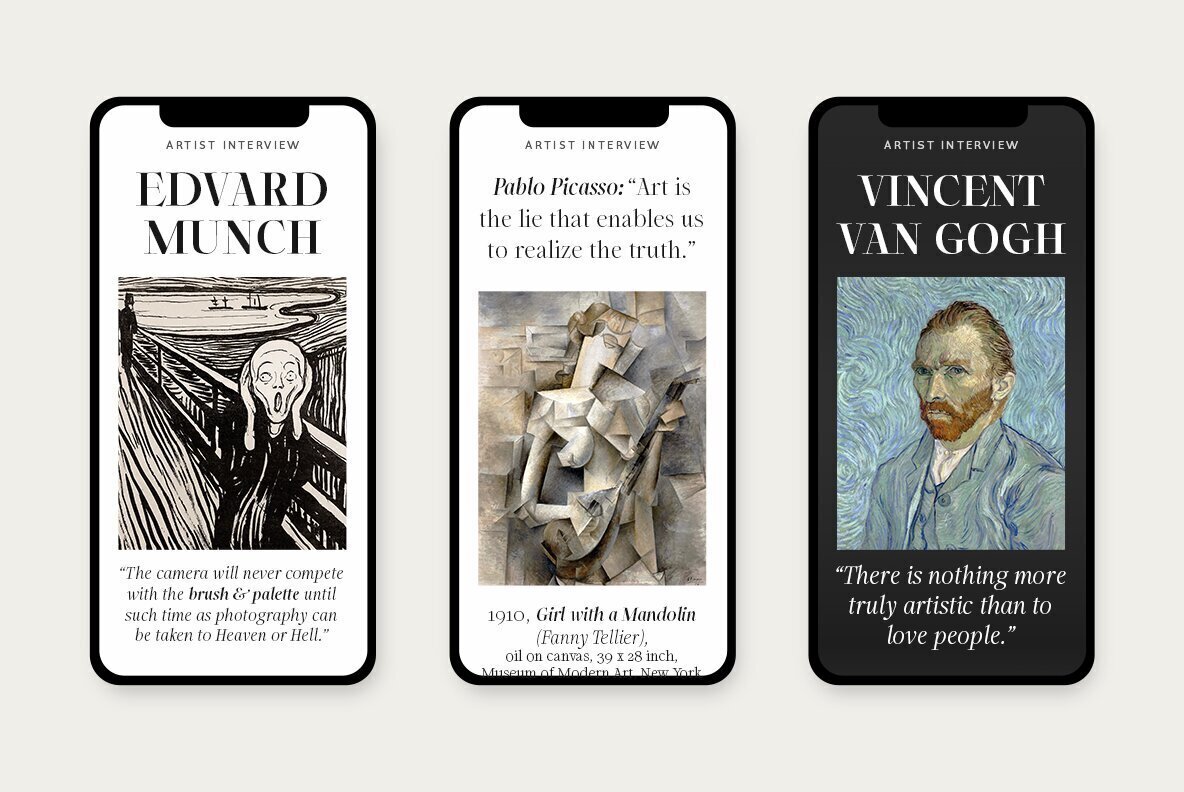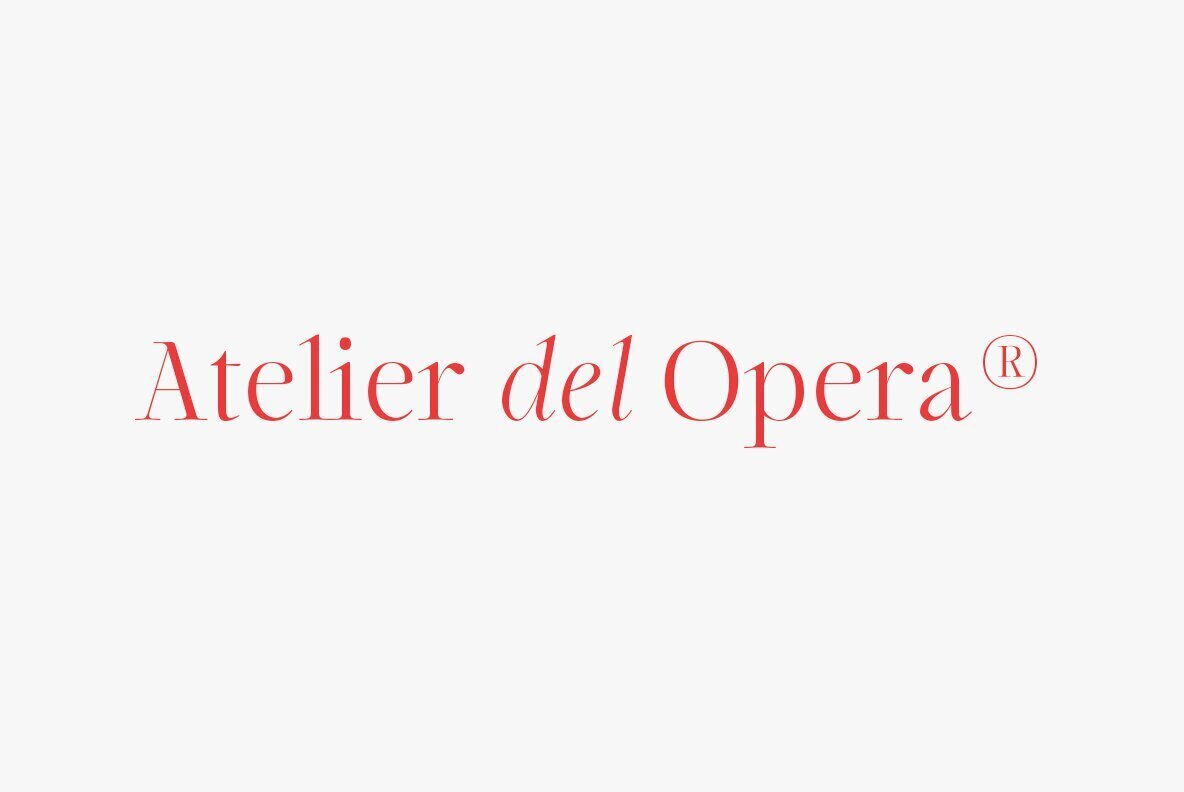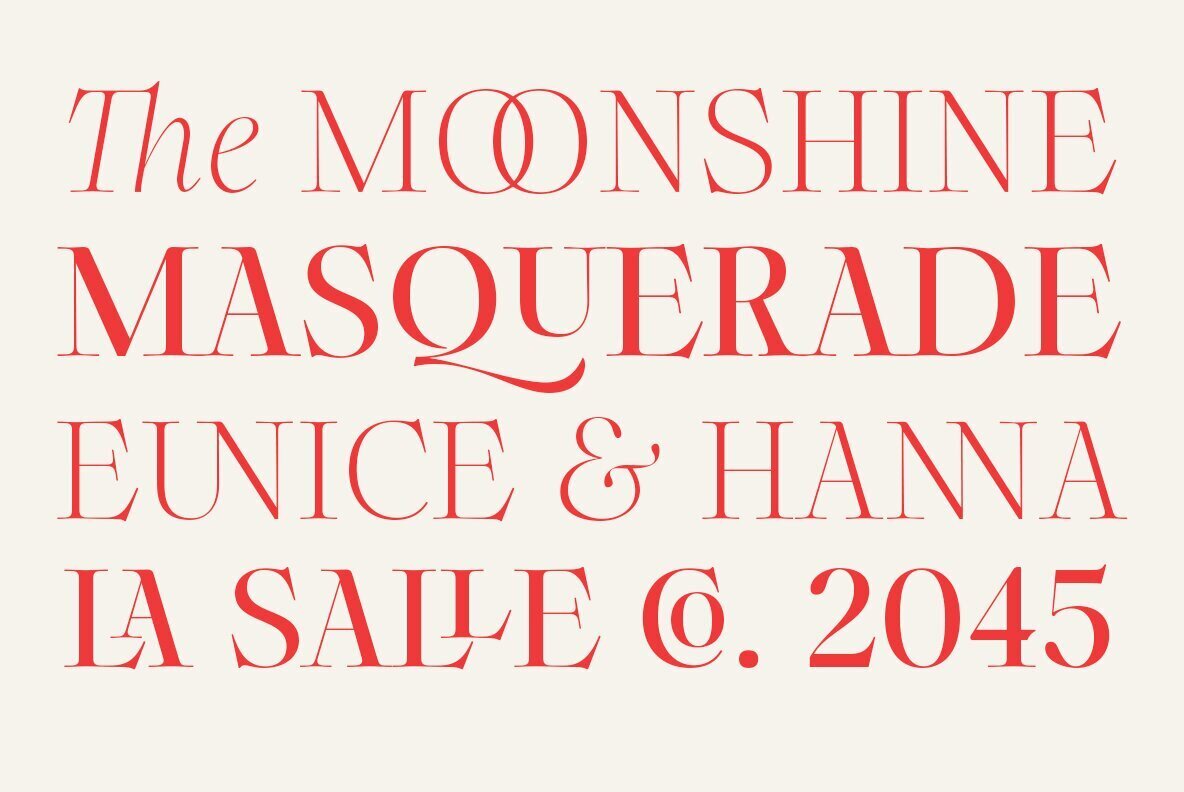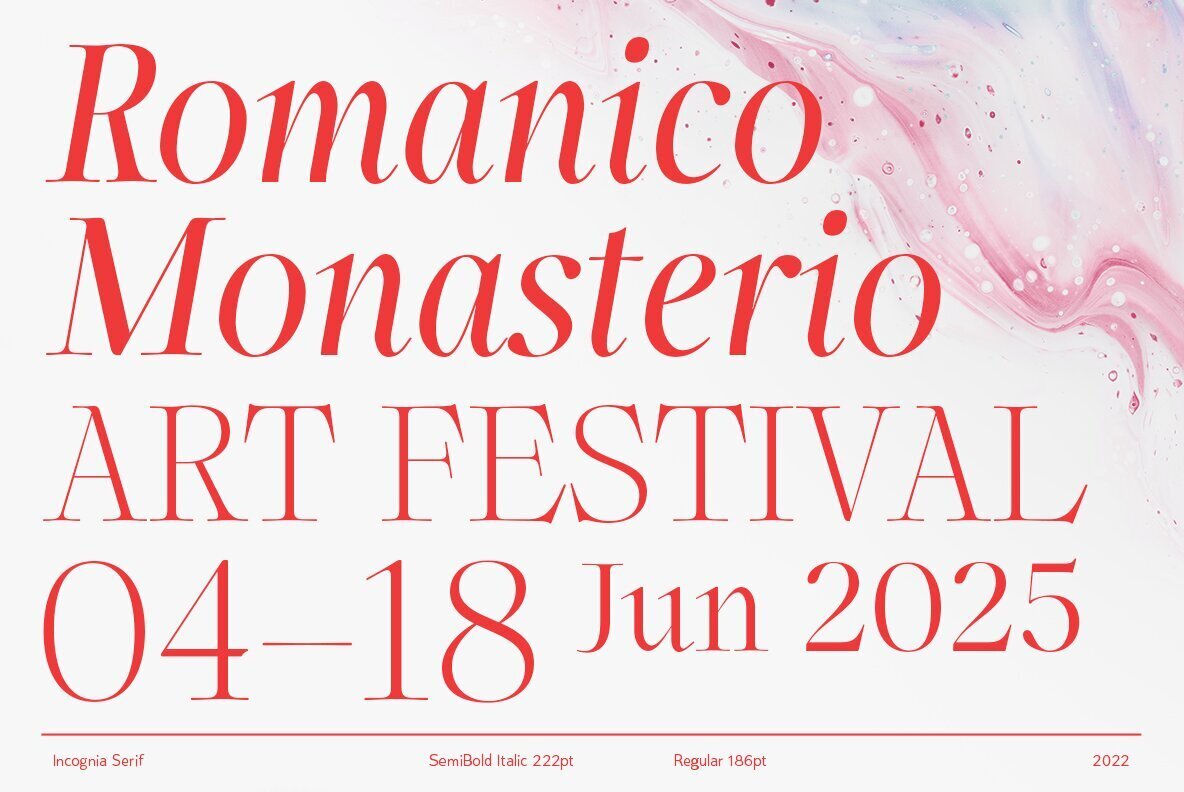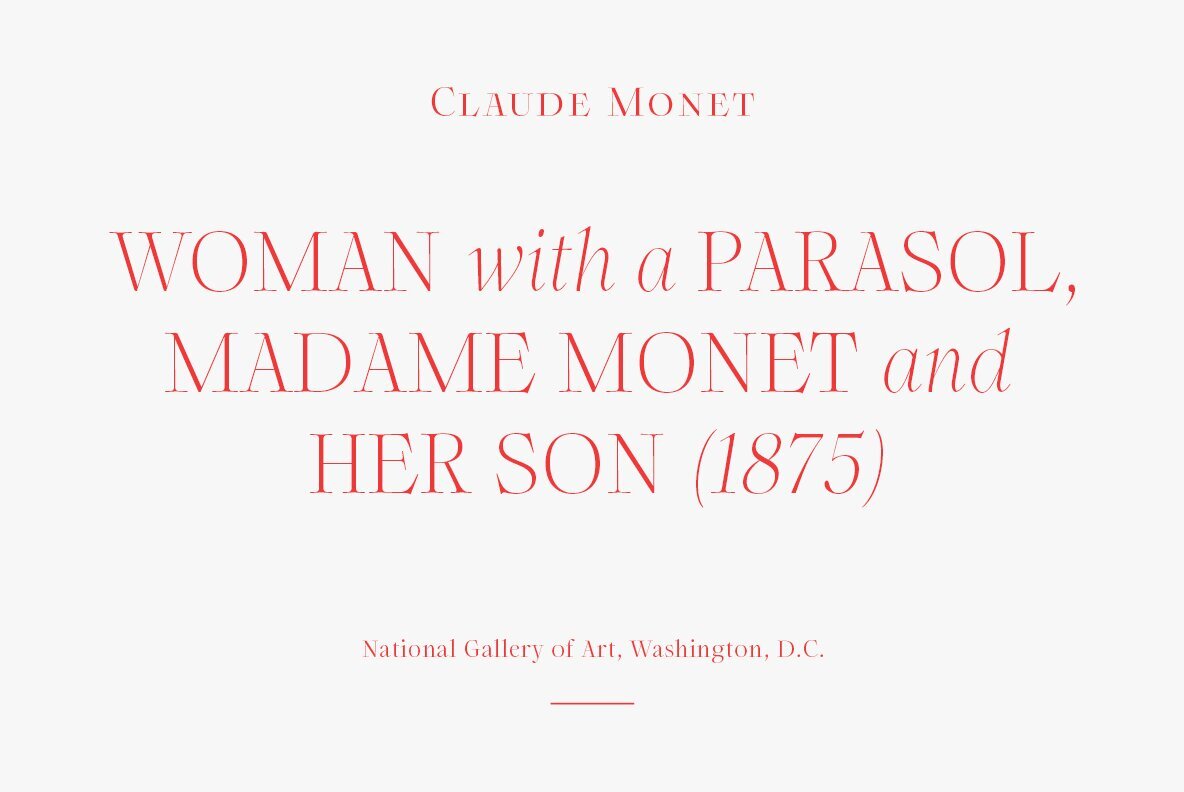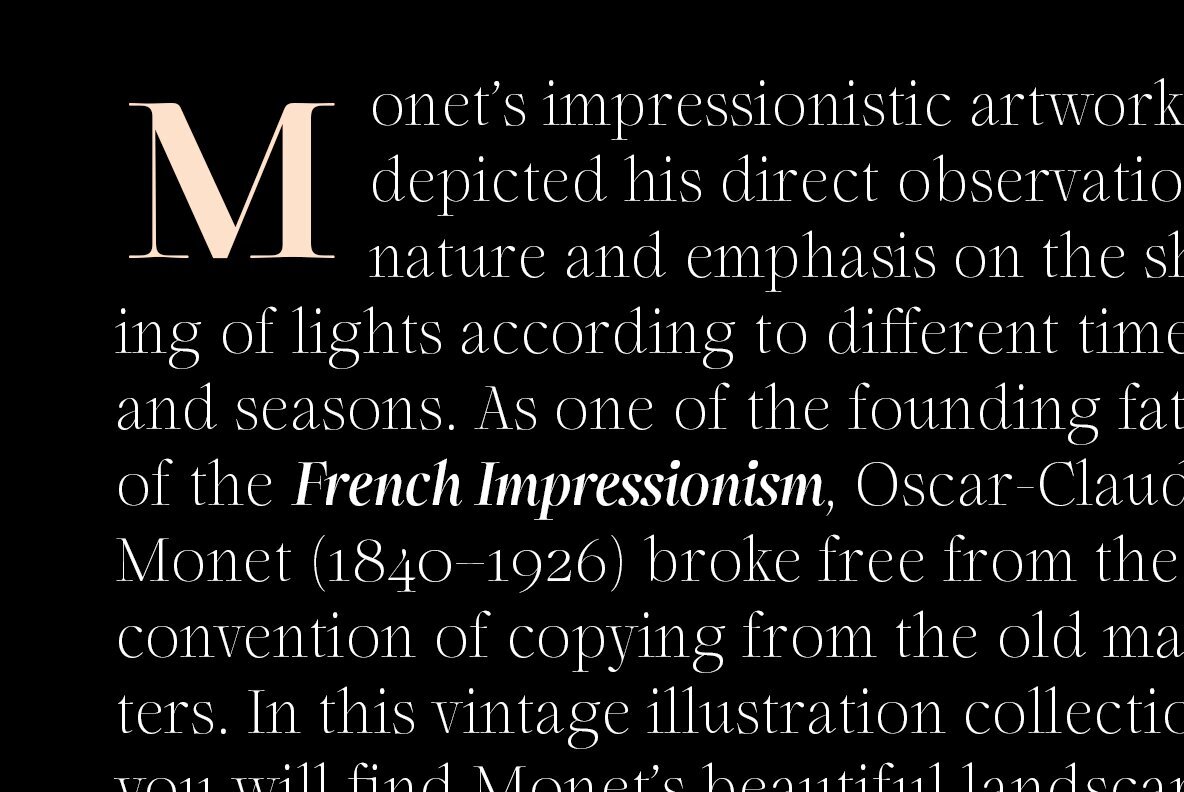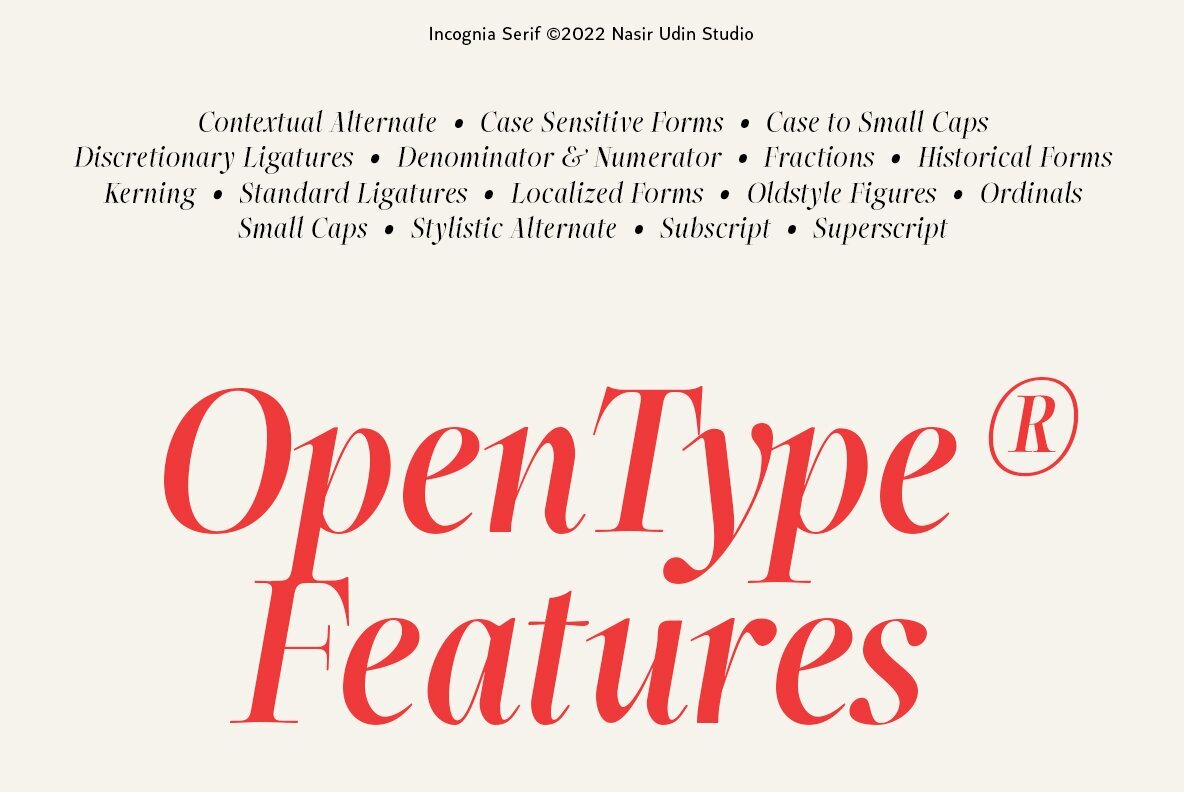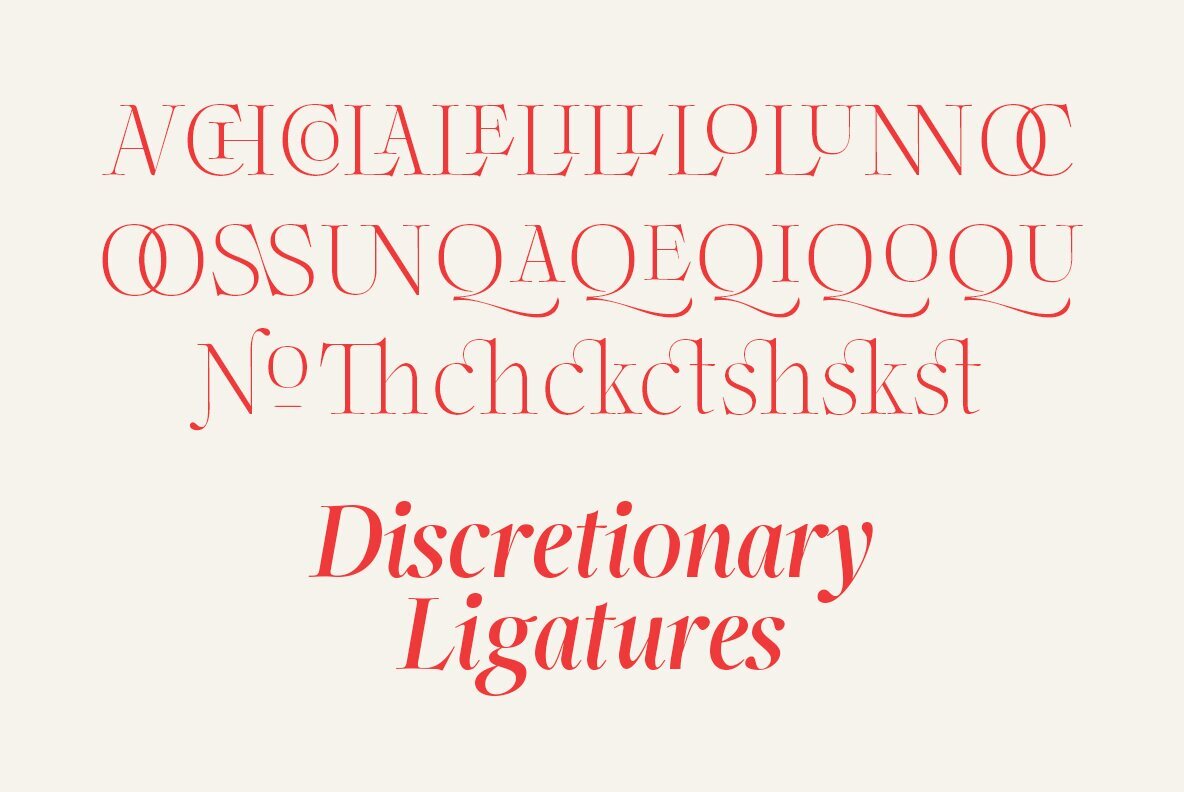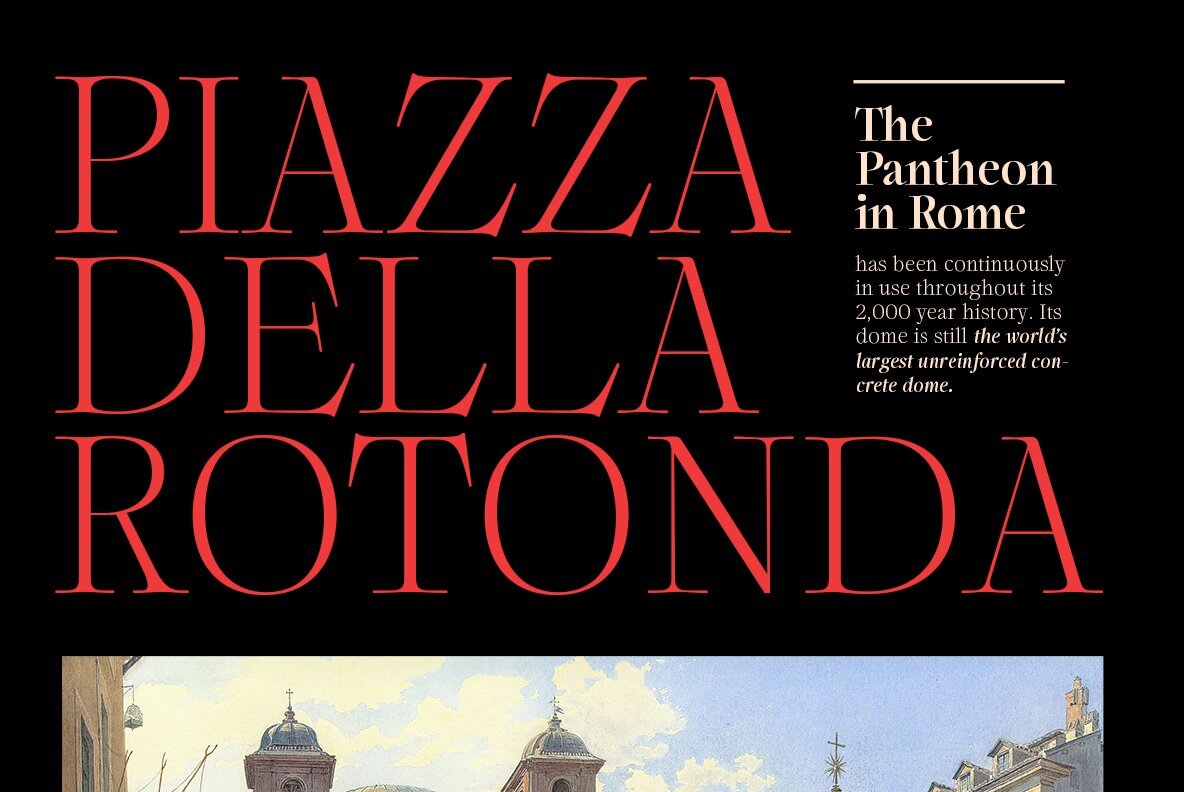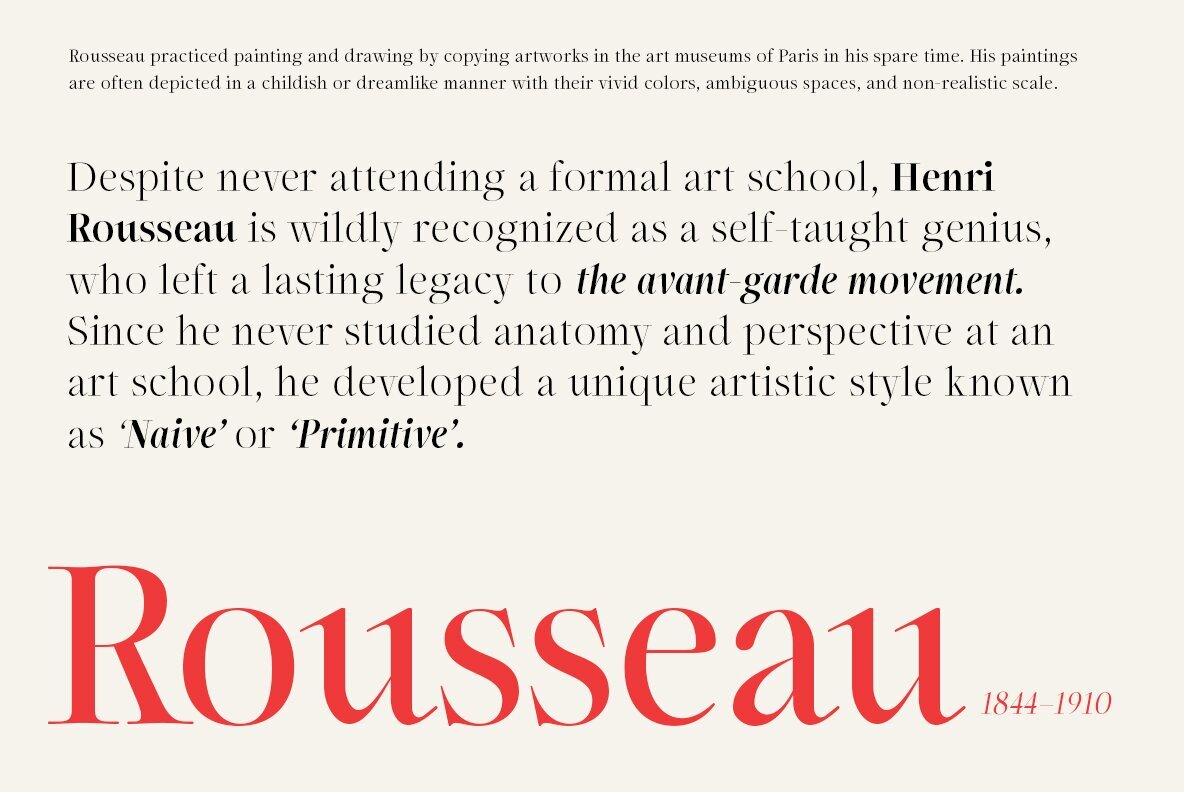
Incognia Font
Incognia is a sharp and high-contrast long-serif type family of 10 fonts inspired by classic roman typography.
Ranging from light to bold with matching italics, Incognia offers many possibilities to be applied in many graphic or editorial projects. The lighter weights are suitable for short paragraph, and the heavier weights are perfect for display purpose such as titling or headlines, branding, editorial, book covers, and packaging.
Incognia has extended latin character set that supports 200+ latin-based languages.